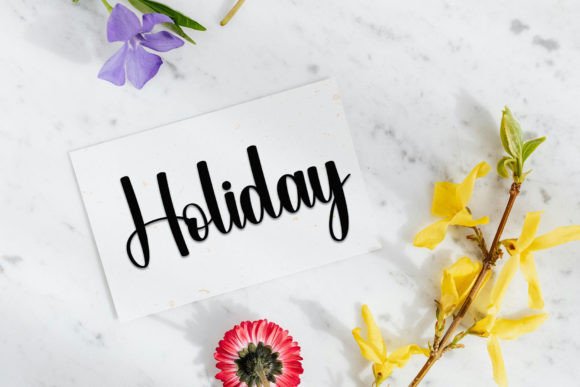
Burger Font: The Perfect Handwritten Font for Your Favorite Projects
Burger Font is a beautiful handwritten font that has been gaining popularity among designers and artists. Its elegant touch and timeless style make it perfect for a wide range of projects, from branding and advertising to packaging and digital media. In this article, we’ll take a closer look at the Burger Font, its features, and how you can use it to create spectacular designs.
What is Burger Font?
Burger Font is a handwritten font that is described by its elegant touch. It’s a neat and beautiful font that is perfect for designers who want to add a personal touch to their projects. The font has an incredibly distinct and timeless style that makes it stand out from other fonts.
One of the best things about Burger Font is its versatility. It’s suitable for a wide range of projects, from formal to informal, and can be used in various contexts, including:
- Branding and advertising
- Packaging and labeling
- Digital media, such as social media graphics and blog posts
- Print materials, such as brochures and flyers
Benefits of Using Burger Font
There are several benefits to using Burger Font in your projects. Here are a few:
- Elegant and sophisticated look: Burger Font has an elegant and sophisticated look that will elevate your designs and make them stand out.
- Versatile: The font is versatile and can be used in various contexts, from formal to informal.
- Easy to read: Burger Font is easy to read, even at small sizes, making it perfect for body text and captions.
- Unique and distinctive: The font has a unique and distinctive style that will help your designs stand out from the crowd.
How to Use Burger Font
Using Burger Font is easy. Here are a few tips to get you started:
- Pair it with other fonts: Burger Font can be paired with other fonts to create a unique and interesting look.
- Use it for headings and titles: The font is perfect for headings and titles, as it adds an elegant and sophisticated touch to your designs.
- Experiment with different colors: Burger Font looks great in a variety of colors, so don’t be afraid to experiment and find the perfect color for your design.
Design Inspiration with Burger Font
Burger Font is a versatile font that can be used in a wide range of design projects. Here are a few examples of how you can use the font to create spectacular designs:
Branding and Advertising
Burger Font can be used to create elegant and sophisticated branding and advertising materials, such as logos, business cards, and billboards.
Packaging and Labeling
The font is perfect for packaging and labeling, as it adds a personal touch to products and makes them stand out on store shelves.
Digital Media
Burger Font can be used to create stunning digital media, such as social media graphics, blog posts, and email newsletters.
Font Pairing with Burger Font
Font pairing is an essential part of typography. Here are a few fonts that pair well with Burger Font:
- Open Sans: A clean and modern sans-serif font that pairs well with Burger Font’s elegant script.
- Lato: A sleek and sophisticated sans-serif font that complements Burger Font’s elegant style.
- Merriweather: A classic serif font that pairs well with Burger Font’s elegant and sophisticated look.
Burger Font is a beautiful handwritten font that is perfect for designers who want to add an elegant and sophisticated touch to their projects. Its versatile style and easy-to-read design make it suitable for a wide range of projects, from branding and advertising to packaging and digital media.
Whether you’re a professional designer or a DIY enthusiast, Burger Font is a great choice for your next project. So why not give it a try and see how it can elevate your designs?